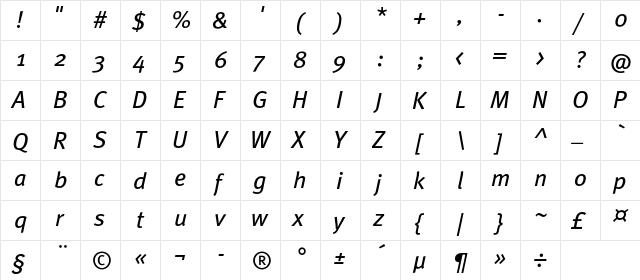
MetaBookC Italic
Design Context for MetaBookC Typeface
MetaBookC offers clean, dependable letterforms without strong stylistic allegiance, making it a practical choice for designers who need flexibility. The slanted form adds forward momentum and visual energy.
First published in 1991, this typeface is available in OpenType (OTF) format.
Pro Tip: Use MetaBookC for emphasis, pull quotes, and subheadings where its slanted energy can add rhythm to the layout.